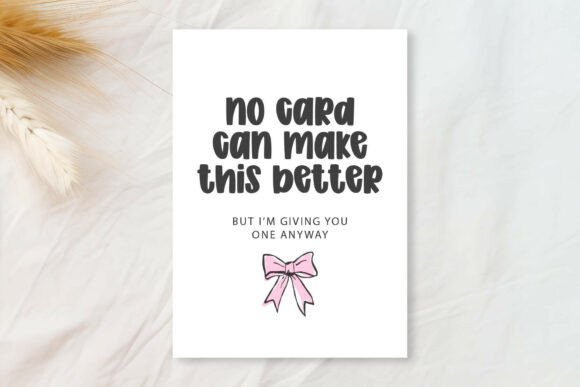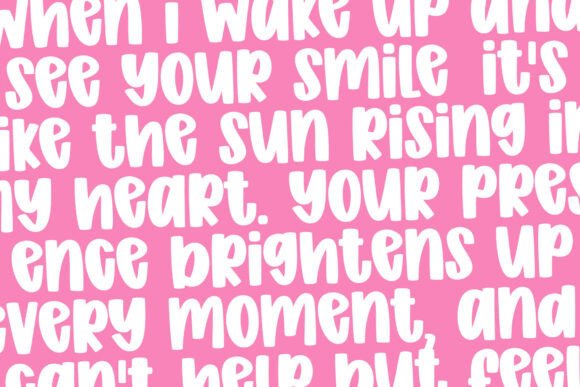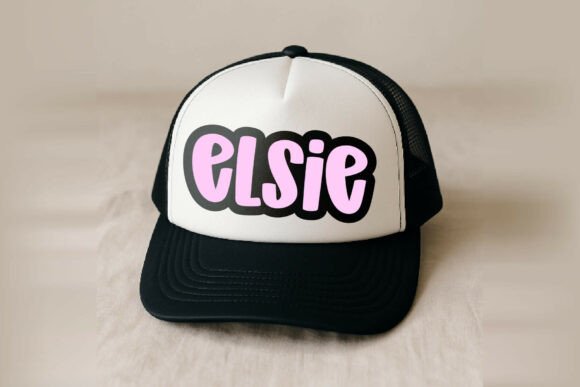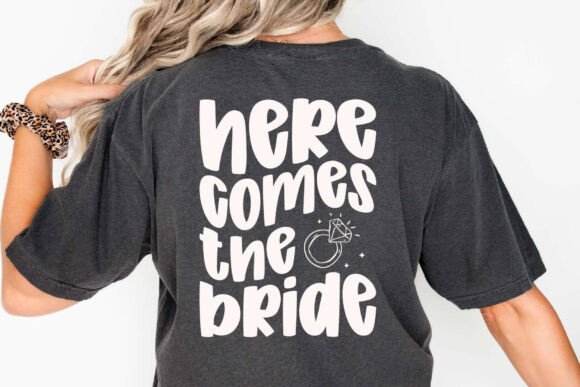
Jelly Puff Font
Jelly Puff is an irresistibly cute and supremely chunky font that looks as squishy and delightful as a balloon or a piece of candy.
The typeface boasts exceptionally thick, rounded letterforms with absolutely no sharp edges, giving every character a bouncy, plush, and volumetric feel. This bubble-letter style is enhanced by its short ascenders and descenders, creating a compact, impactful visual block perfect for high-energy designs.
It is an ultimate choice for anything targeting a young audience, including children’s branding, candy and sweet packaging, sticker designs, animated titles, and feminine, bubbly logos. Its high-impact, ultra-friendly nature makes it perfect for Cricut and crafting projects, ensuring it pops off the page (or screen) with maximum cheer and sweetness.